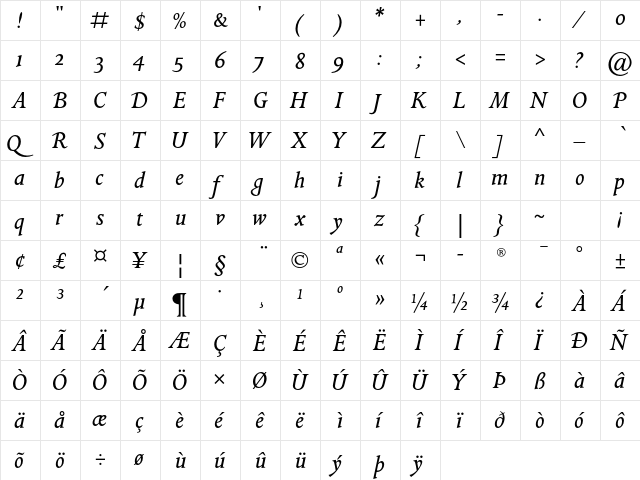
Golden Cockerel ITC Std Italic
| Designer | Dave Farey/Richard Dawson |
Design Context for Golden Cockerel ITC Std Typeface
Golden Cockerel ITC Std offers clean, dependable letterforms without strong stylistic allegiance, making it a practical choice for designers who need flexibility. The dynamic lean of this cut emphasises speed and emphasis in any layout.
Pro Tip: Use Golden Cockerel ITC Std for emphasis, pull quotes, and subheadings where its slanted energy can add rhythm to the layout.